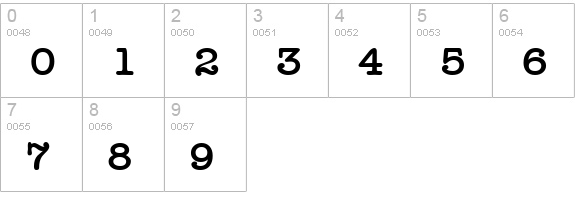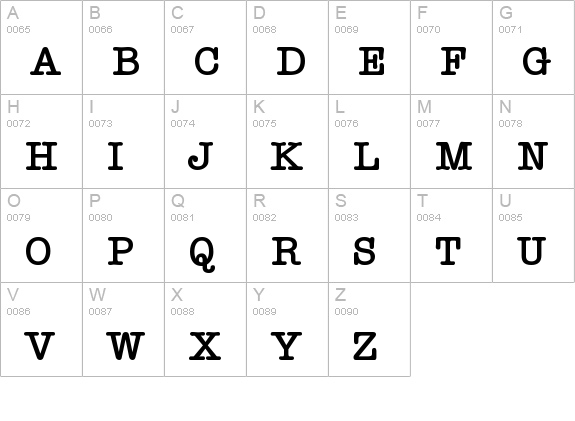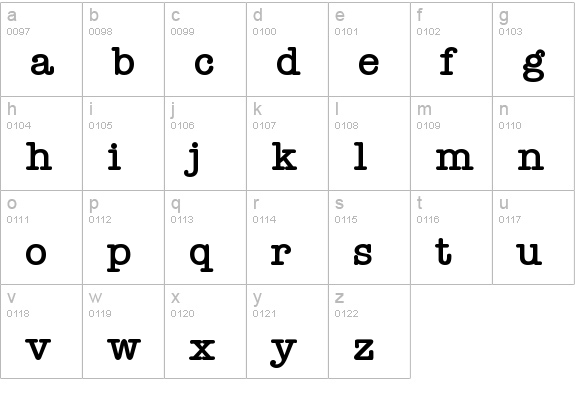
Typist fed Font Details
Introducing Typist fed font, a stunning typeface that effortlessly combines elegance and modernity. With its sleek and stylish design, this font is perfect for a wide range of creative projects, from branding and advertising to web design and print materials. What sets Typist fed font apart is not only its impeccable aesthetic, but also the fact that it is completely free. Yes, you read that right - this incredible font is freely available to download at FontsMarket.com. Now you can add a touch of sophistication and professionalism to your designs without breaking the bank. Featuring clean lines, subtle curves, and a timeless appeal, Typist fed font is sure to make a lasting impression. Its versatility allows it to be used in various contexts, whether you're creating a logo for a high-end fashion brand or designing a sleek website for a tech startup. The attention to detail in this font is truly remarkable. Each letter is meticulously crafted to ensure a seamless and harmonious visual experience. The strokes flow effortlessly, creating a sense of fluidity and motion that adds a dynamic energy to your designs. Whether you're a professional graphic designer or a novice enthusiast, Typist fed font is a must-have in your font collection. Its wide range of weights and styles gives you the flexibility to experiment and create unique compositions that are tailored to your specific needs. So why wait? Unlock your creativity and elevate your designs with Typist fed font. Download it for free today at FontsMarket.com and let your imagination run wild. With this font by your side, the possibilities are endless.